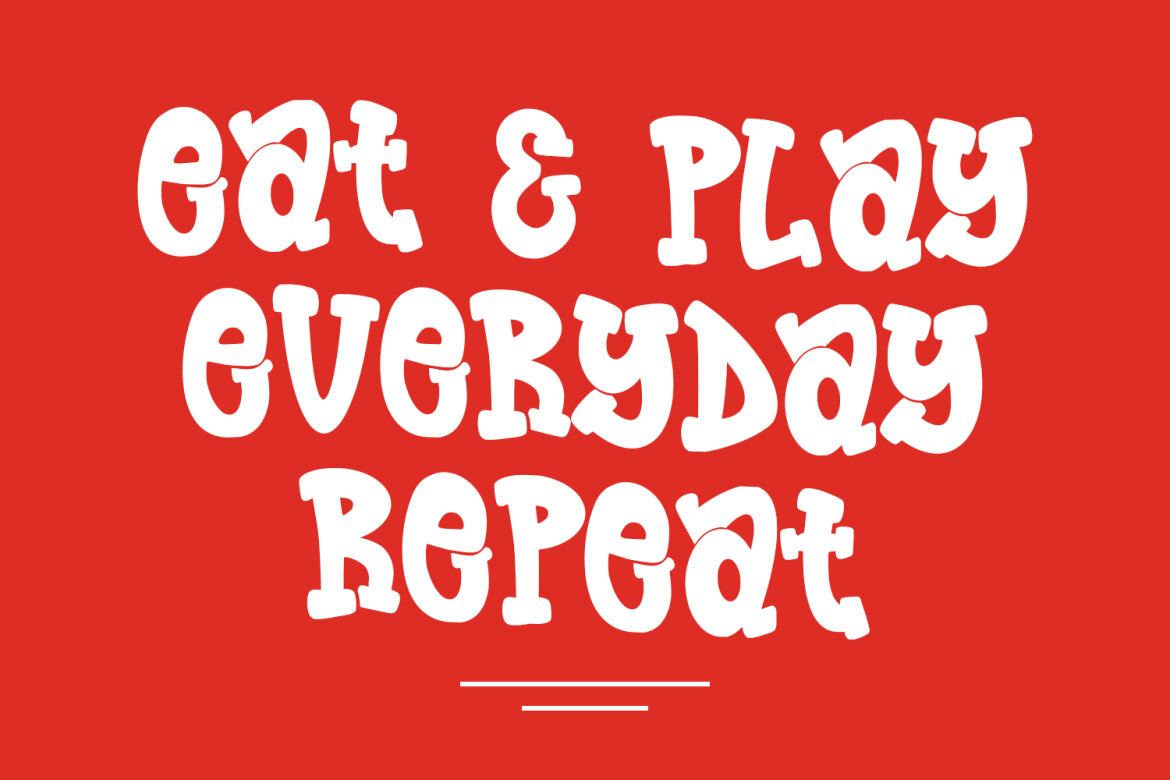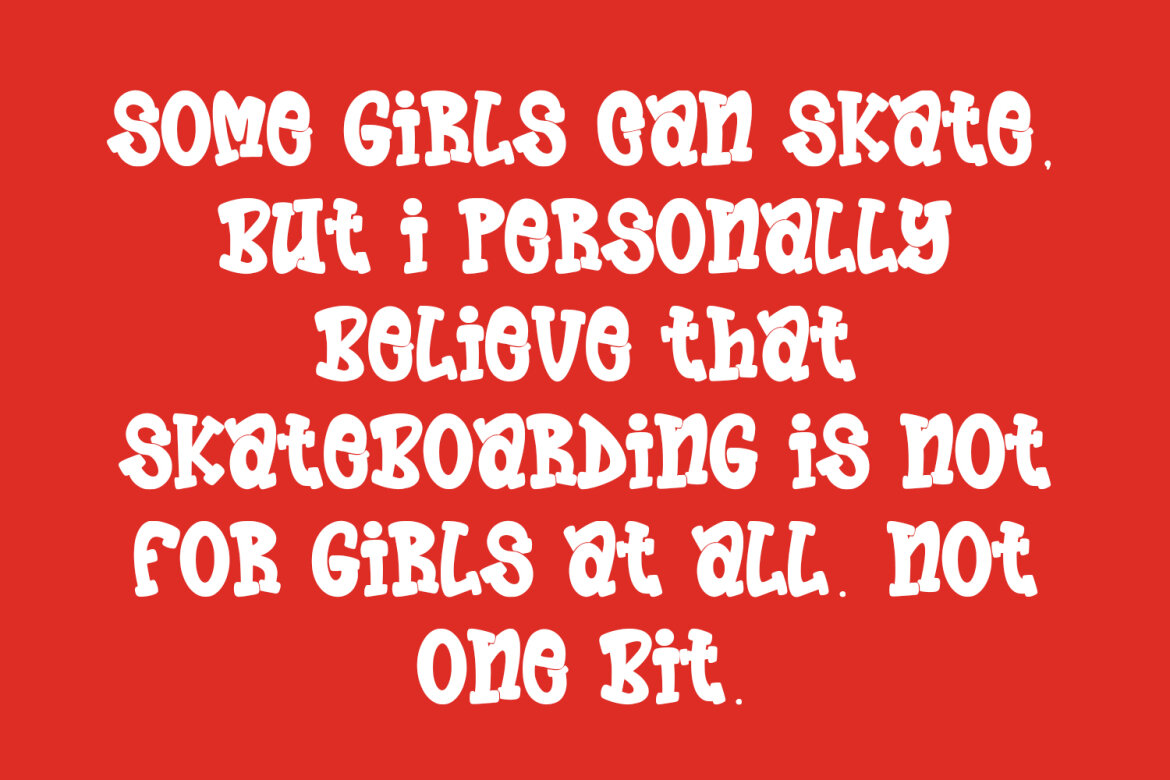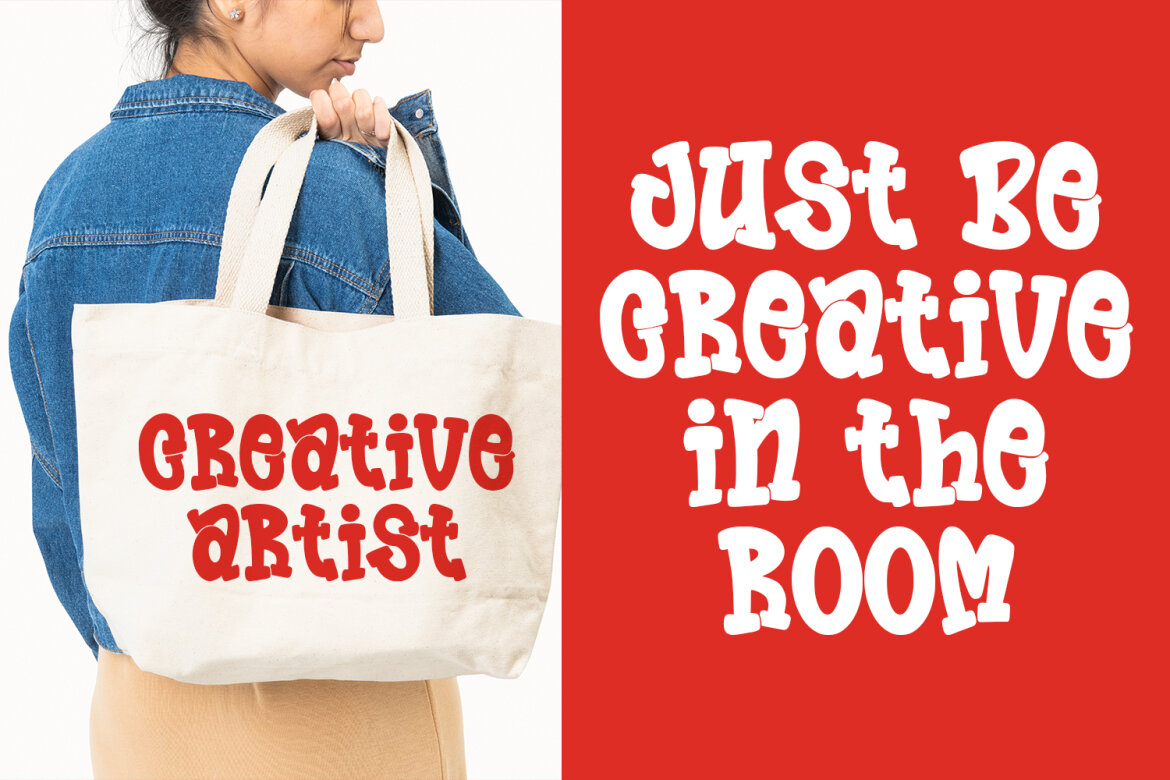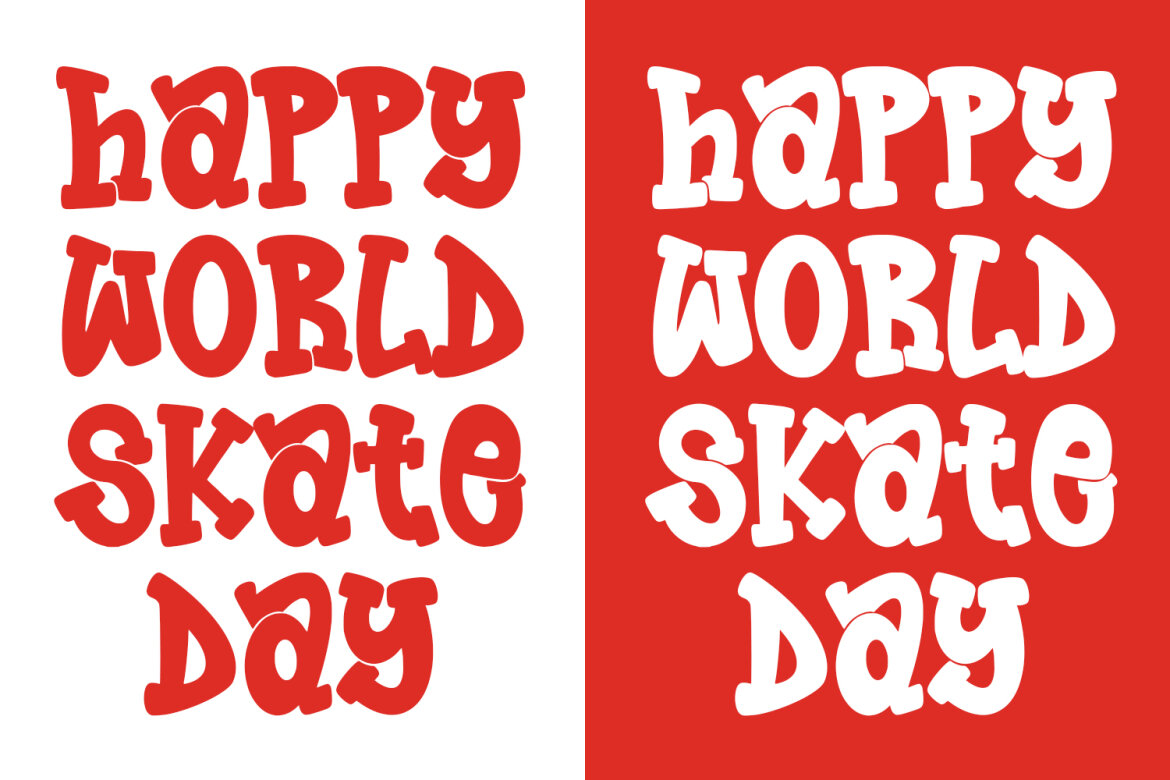
Rib Cawmy Playful FREE Font
Rib Cawmy Regular
Rib Cawmy playful display font. Bold stroke, fun character with a bit of ligatures and alternates. To give you an extra creative work. Rib Cawmy playful display font support multilingual more than 100+ language. This font is good for logo design, Social media, Movie Titles, Books Titles, a short text even a long text letter and good for your secondary text font with script or serif. Make a stunning work with Rib Cawmy playful display font.